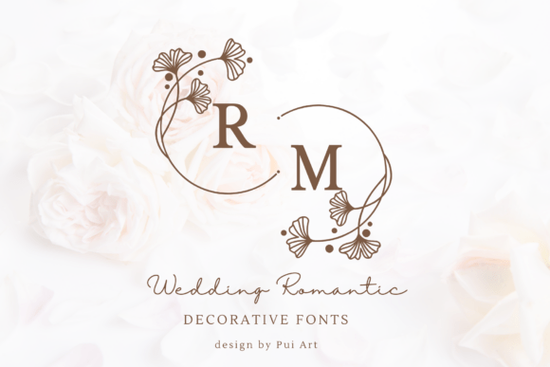
If you're designing wedding invitations, event signage, or luxury stationery, finding the right typeface can make or break the final look. The Wedding Romantic Font is a decorative serif typeface that pairs clean, classic letterforms with hand-drawn botanical wreaths around each uppercase letter and number. Think of each character as a ready-made monogram no extra design work needed.
For designers and crafters who want that romantic, feminine aesthetic without spending hours on custom illustrations, this font does a lot of the heavy lifting. Here's a closer look at what it offers and how you can use it.
What Makes This Font Different from Other Wedding Typefaces?
Plenty of decorative fonts aim for an elegant feel, but many sacrifice readability in the process. What stands out about this typeface is the contrast between the structured serif characters and the soft, natural floral frames surrounding them. The letterforms themselves are clean and well-proportioned, so text remains legible even at smaller sizes. The botanical wreaths are detailed but not cluttered thin, hand-drawn line art that adds personality without overwhelming the design.
This balance between classic typography and organic ornamentation is what gives the font its refined, graceful quality. It doesn't look cartoonish or overly busy, which is a common problem with decorative display fonts.
Where Does This Font Work Best?
This typeface is built for projects where elegance and femininity matter. Some practical uses include:
- Wedding invitations and save-the-dates The floral monogram style fits perfectly with formal and semi-formal stationery.
- Event branding Think bridal showers, anniversary parties, and garden-themed celebrations.
- Luxury packaging Beauty brands, candle makers, and artisan product sellers can use it for labels and box designs.
- Personalized stationery Initial notecards, envelope liners, and gift tags.
- Print-on-demand products Mugs, tote bags, and wall art featuring monogram-style initials.
- Digital designs Social media graphics, website headers, and e-invitations.
Because each uppercase letter already includes a botanical frame, you can drop a single initial onto a design and have an instant focal point. That's especially useful for monogram-based products, which continue to sell well on platforms like Etsy and Amazon Merch.
How Do You Pair It with Other Fonts?
Since Wedding Romantic is a display font with decorative details, it pairs best with a simple, understated body font. A clean sans-serif or a light-weight serif will complement it without competing for attention. Reserve the ornate letters for headings, initials, or short phrases not for paragraphs of body copy.
For example, you might use the floral characters for a couple's initials at the top of an invitation, then set the event details in a lightweight serif like a butterfly-themed decorative font or a simple script. Mixing two ornate fonts together usually creates visual noise rather than harmony.
Is It Suitable for Both Print and Digital Projects?
Yes. The clean serif base holds up well in both contexts. At larger sizes, the floral wreath details are clearly visible, making it ideal for printed invitations and signage. At smaller sizes on screens, the serif structure keeps the letters recognizable. That said, for very small text (under 12pt), you'll want to stick with a standard body font and use this typeface only for display or accent text.
If you're working on more decorative serif options for wedding projects, this one fills a specific niche it gives you built-in ornamentation without requiring additional graphic elements.
Quick Checklist Before You Buy
- ✅ Review the full character set make sure the letters and numbers you need have the floral wreath treatment.
- ✅ Test it alongside your chosen body font to confirm the pairing works visually.
- ✅ Try rendering it at the sizes you'll actually use both large display and smaller accent sizes.
- ✅ Consider whether you need only the uppercase ornate letters or if the lowercase set fits your project too.